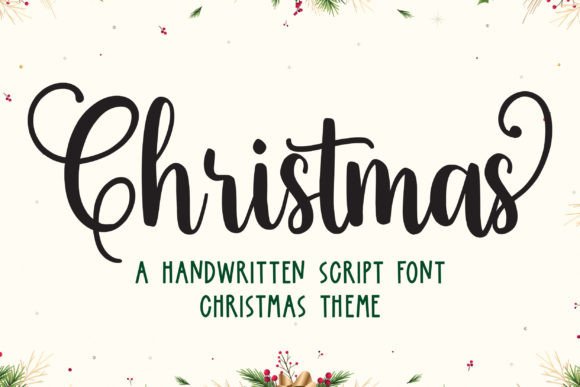
Make this holiday season even more special with the Christmas Font collection by QueenCraft! If you're looking for a font that will give your Christmas card labels and invitations a personal and romantic touch, this is the perfect font family for you!
This script font family is delicately crafted to bring joy and warmth to your designs. Its sweet and dainty strokes will give your projects a gentle, yet elegant look. The Christmas Font family comes with all the glyphs and ligatures you need, and it's PUA encoded, which means you can easily access them all!
With Christmas Font, you can easily create personalized and unique designs that stand out from the rest. It's perfect for crafting invitations, cards, or any design that needs a touch of love and warmth. This font is suitable for both personal and commercial use, and it's easy to integrate with any design software.
This font family is perfect for those who want to create a cozy and warm atmosphere in their designs. Its delicate strokes and joyful curves make it the ideal choice for the holiday season. Don't miss out on the chance to make your designs stand out this holiday season with the Christmas Font collection by QueenCraft!